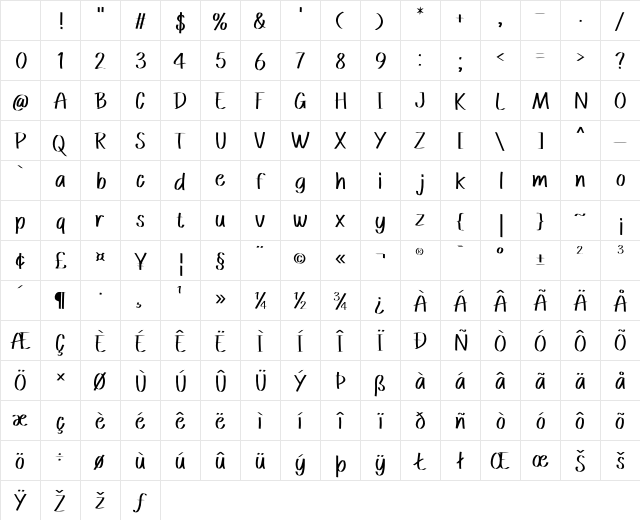
Complete Afinar Regular glyph index. Displaying only characters natively supported by Afinar Regular font.
Afinar is a composed and adaptable typeface that performs quietly and consistently across a wide range of design contexts.